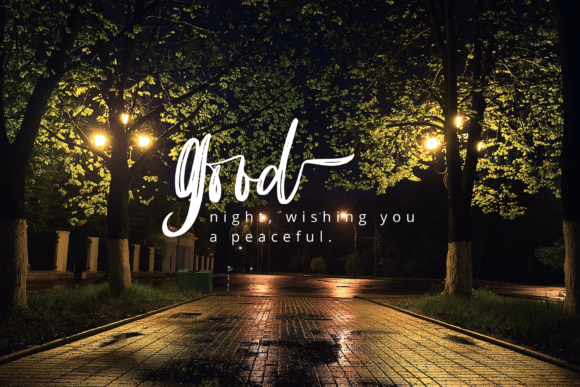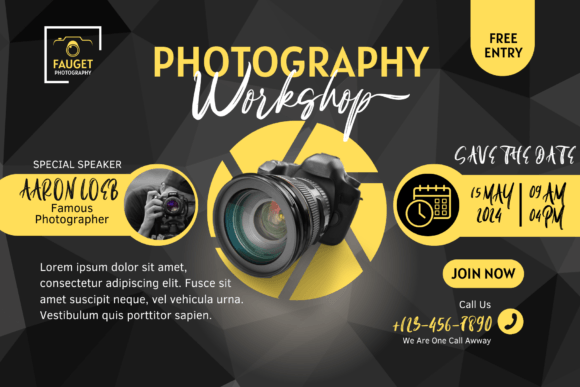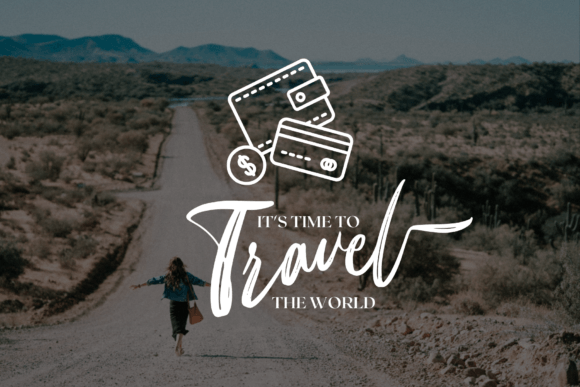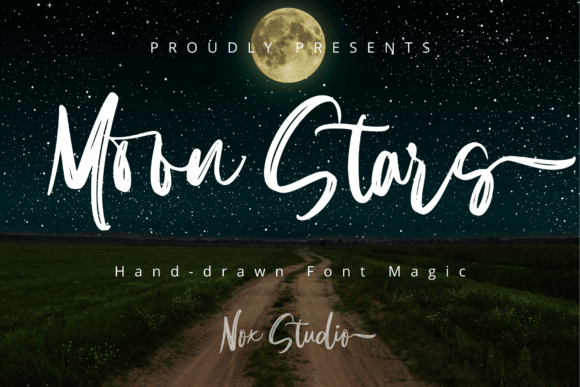
Introduction to Moon Stars Font
Presenting Moon Stars, an exquisitely handcrafted brush font.
Embracing an authentic and uninhibited feel, this font is synonymous with nature’s charm itself It infuses an element of joy and organic beauty into the designs you bring to life, harmoniously blending with a diverse range of design requirements.
Key Features of Moon Stars Font